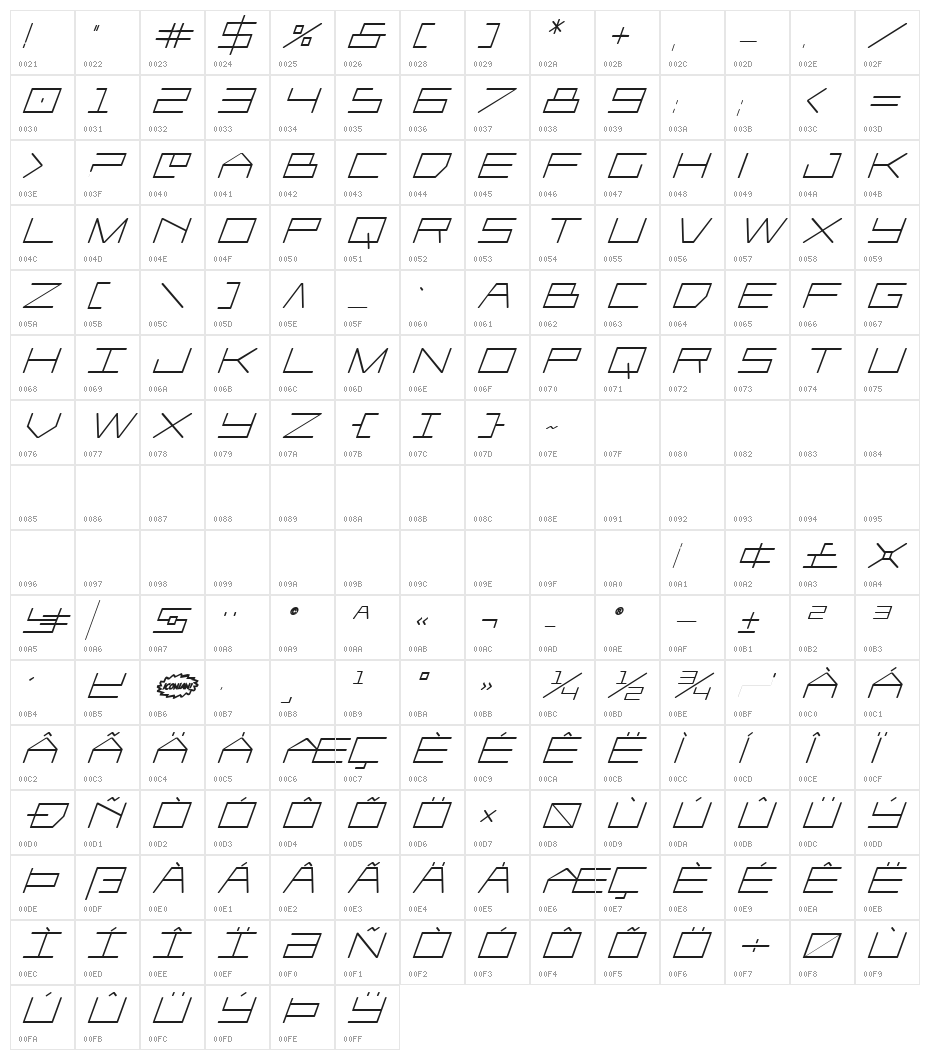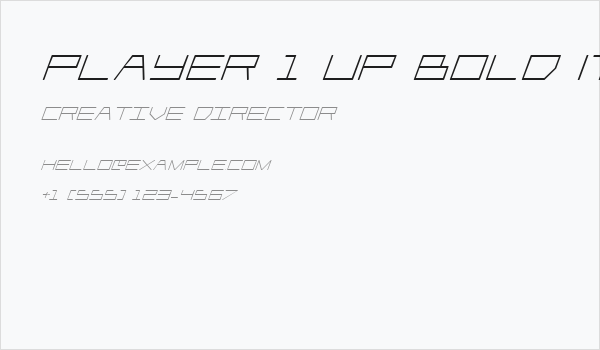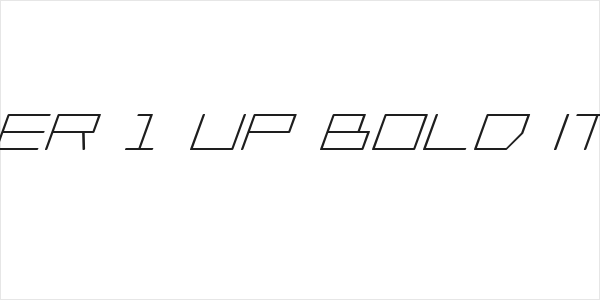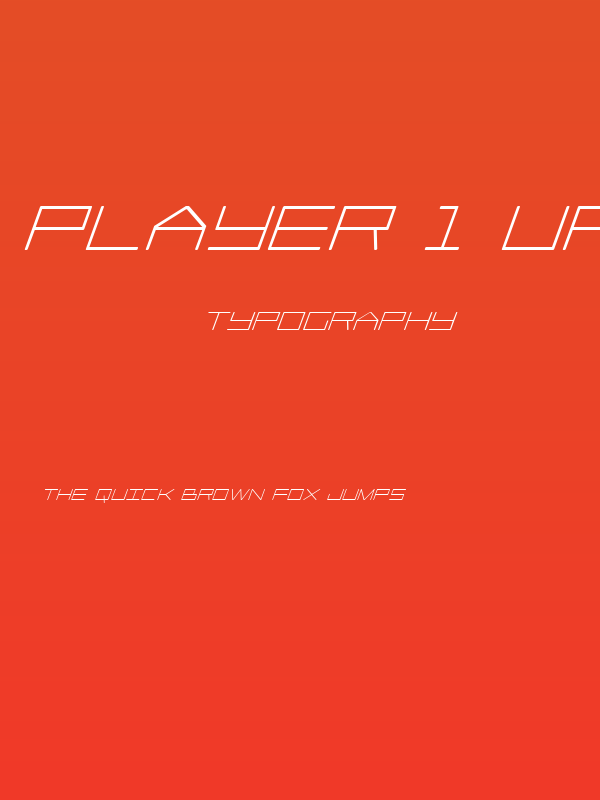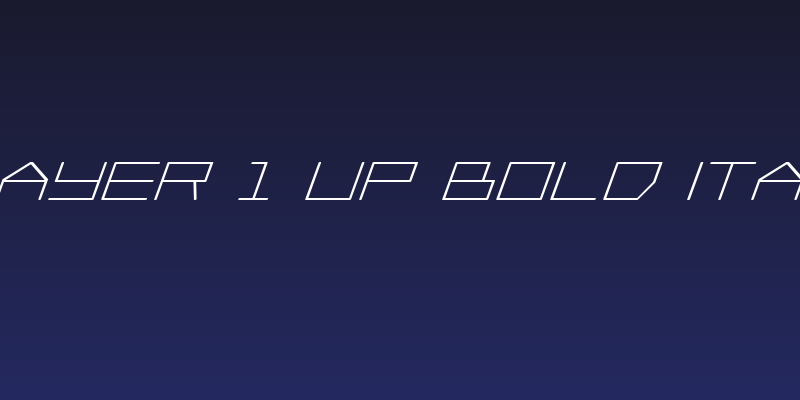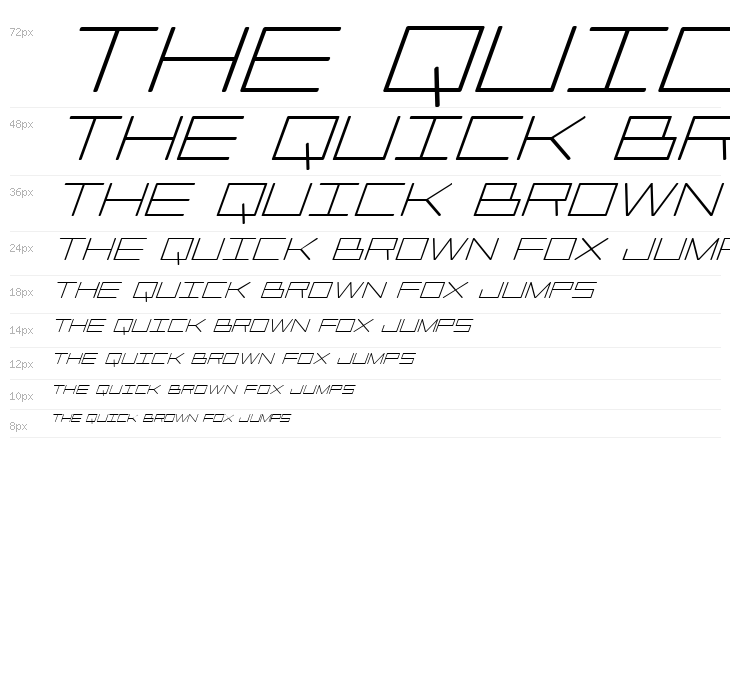
Player 1 Up Bold Italic Font
Player 1 Up Bold Italic Description
This font features a futuristic and angular design, characterized by its geometric and slanted letterforms. The uppercase and lowercase letters maintain a consistent style, with sharp edges and a sleek, modern appearance. The numerals and special characters follow the same design principles, ensuring uniformity across all glyphs. The font's bold and italic attributes enhance its dynamic and energetic feel, making it suitable for projects that require a contemporary and tech-inspired aesthetic.
| Proposed Projects | Ideal for video game titles, tech branding, sci-fi posters, and digital interfaces. |